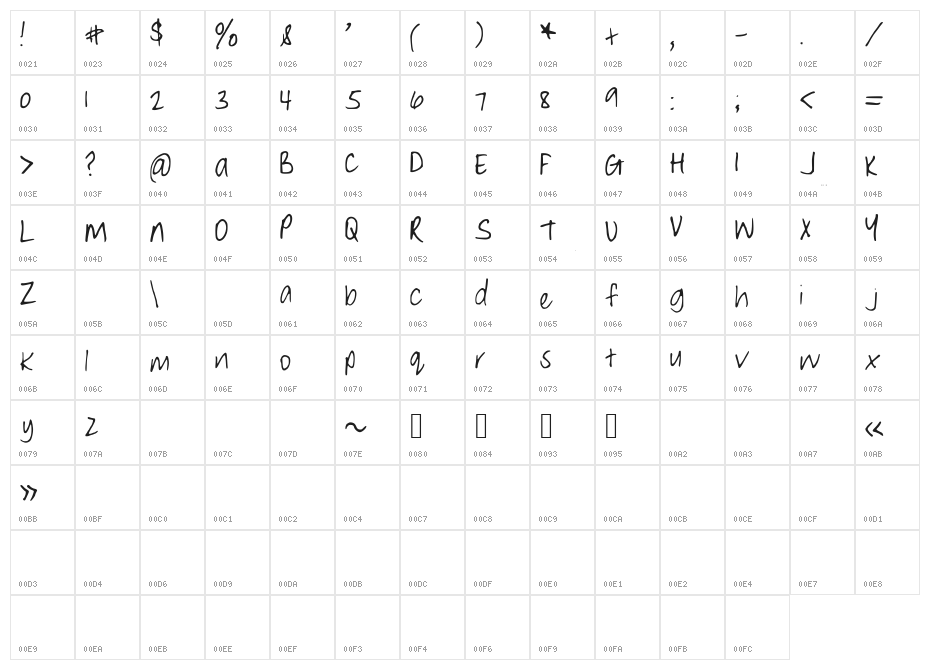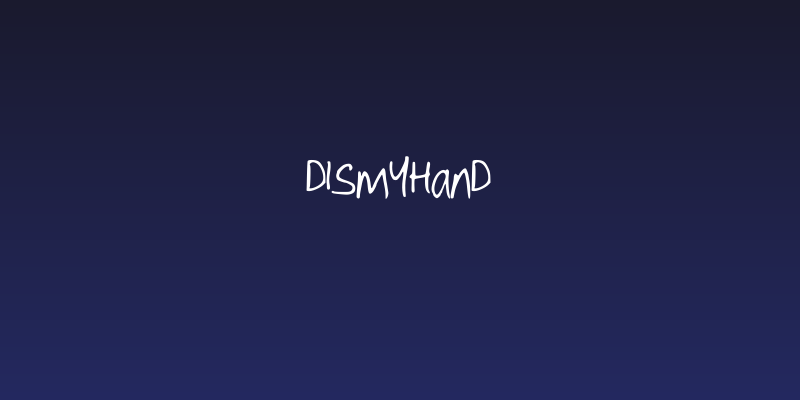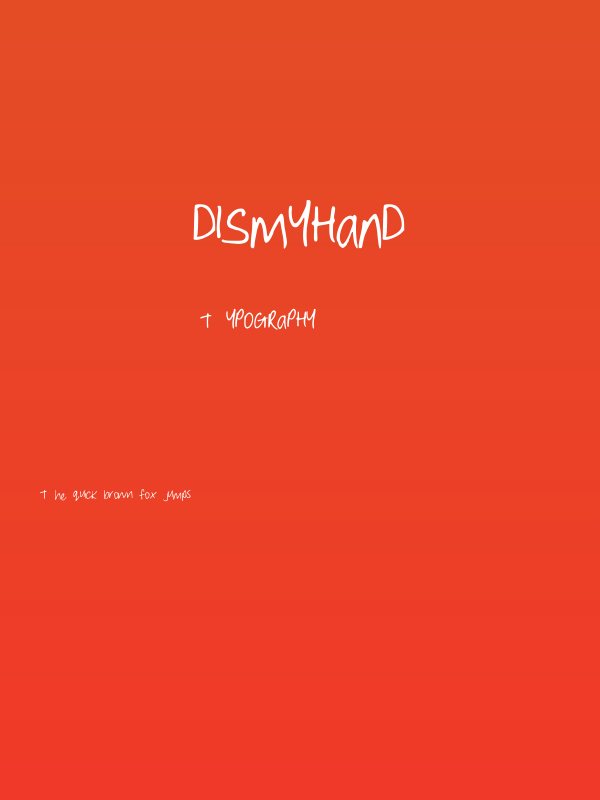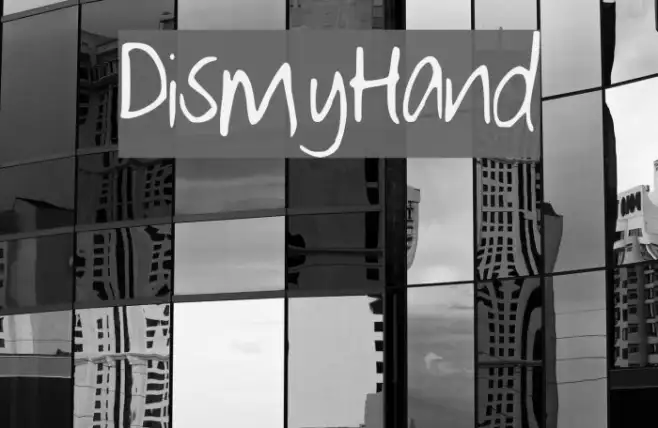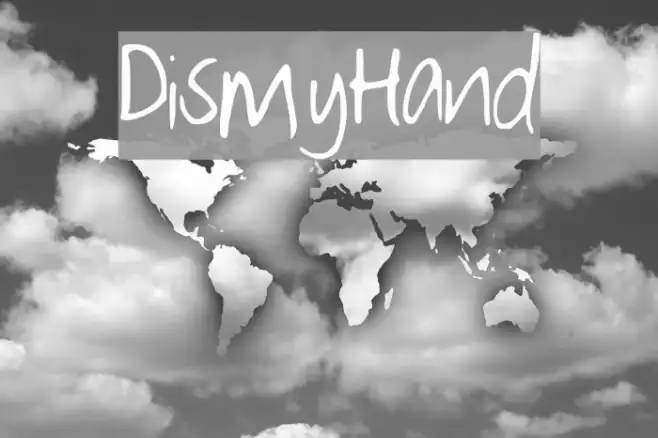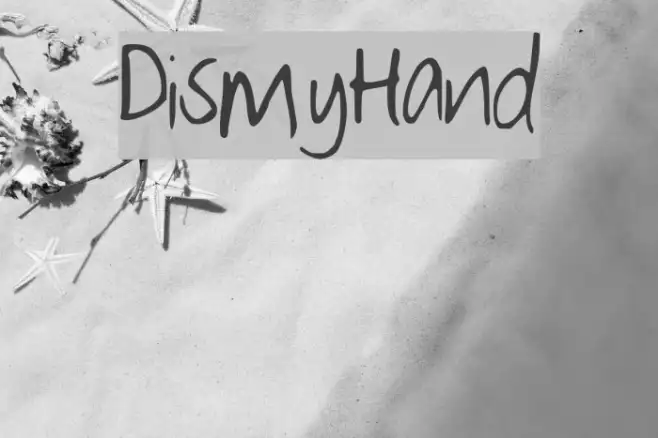
DisMyHand Font
DisMyHand Description
This font exudes a casual, handwritten style that mimics natural handwriting with a playful and informal touch. The characters are slightly irregular, adding to its charm and authenticity. The uppercase and lowercase letters are distinct, with a smooth flow that suggests a personal, human touch. The numbers and special characters maintain the same playful style, making it versatile for various creative projects. The overall appearance is friendly and approachable, perfect for designs that require a personal or informal tone.
| Proposed Projects | Ideal for greeting cards, personal invitations, casual branding, and social media graphics. |